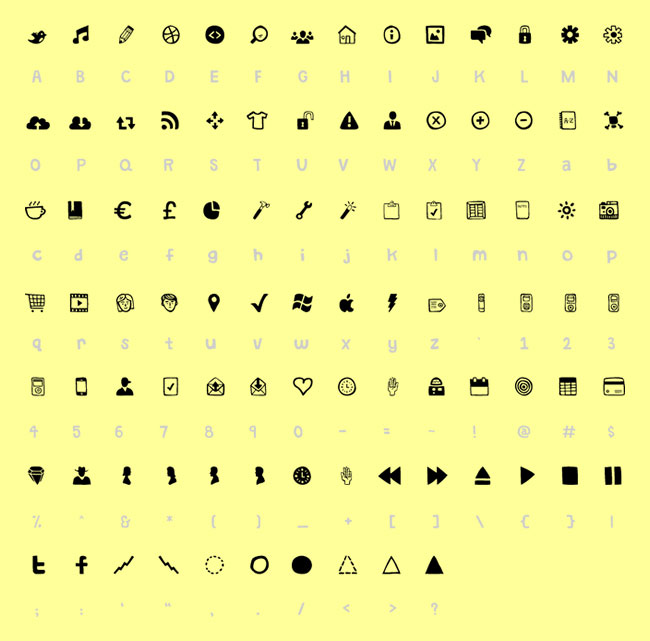
Icons aren't just cute, these days they're a downright necessity. From iPhone apps to user interfaces to just art on your website, everybody needs icons. The problem is, most icon galleries pretty much look alike. So maybe it's time to give hand-drawn icons a shot.
These certainly aren't your father's icons. Sure there are the standard buttons, arrows, stars and calendar type icons. But you'll also get some incredibly unique artistic renditions of sneakers, coffee, animals, cameras, skateboards, superheroes and even Star Wars characters. These hand-drawn icons are sure to make your site memorable!
Steedicons Font
This bundle also includes a spiffy web-safe font file featuring 98 of the most popular SteedIcons! Available in .TTF, .EOT, .SVG and .WOFF formats, this collection uses 98 of your favorite hand-drawn icons as a font.